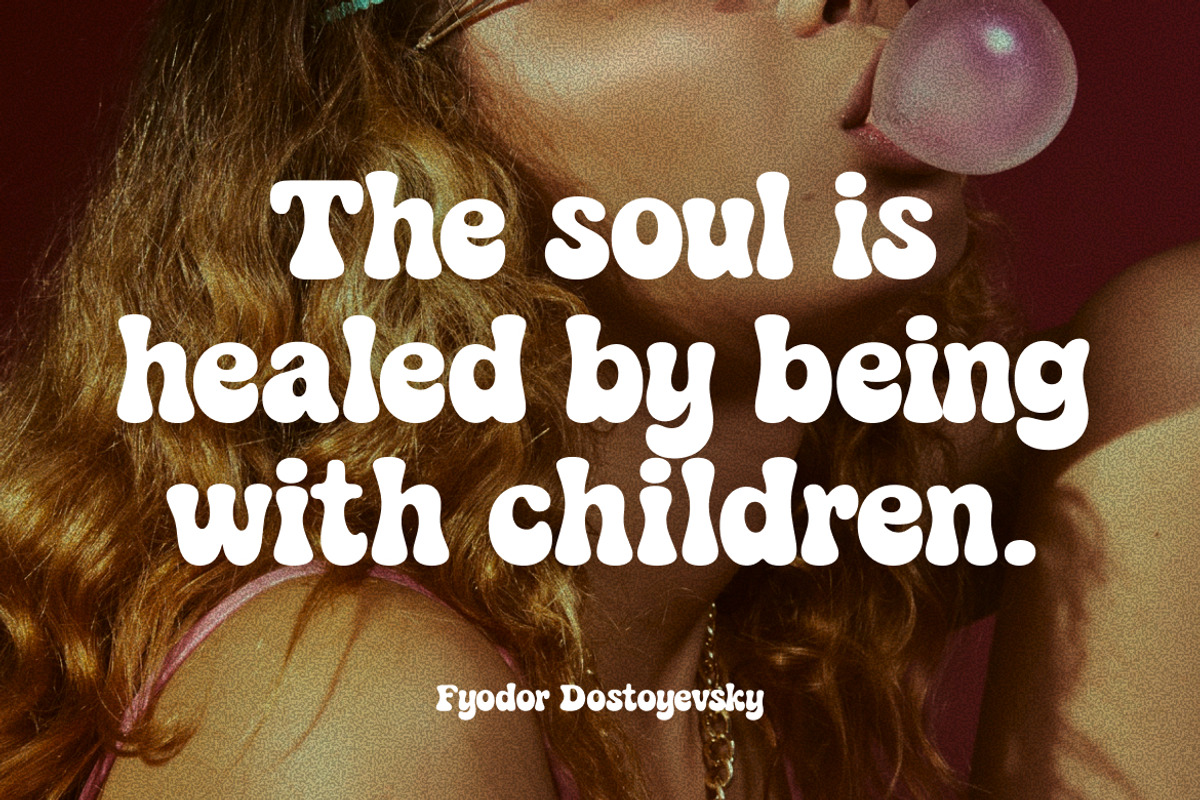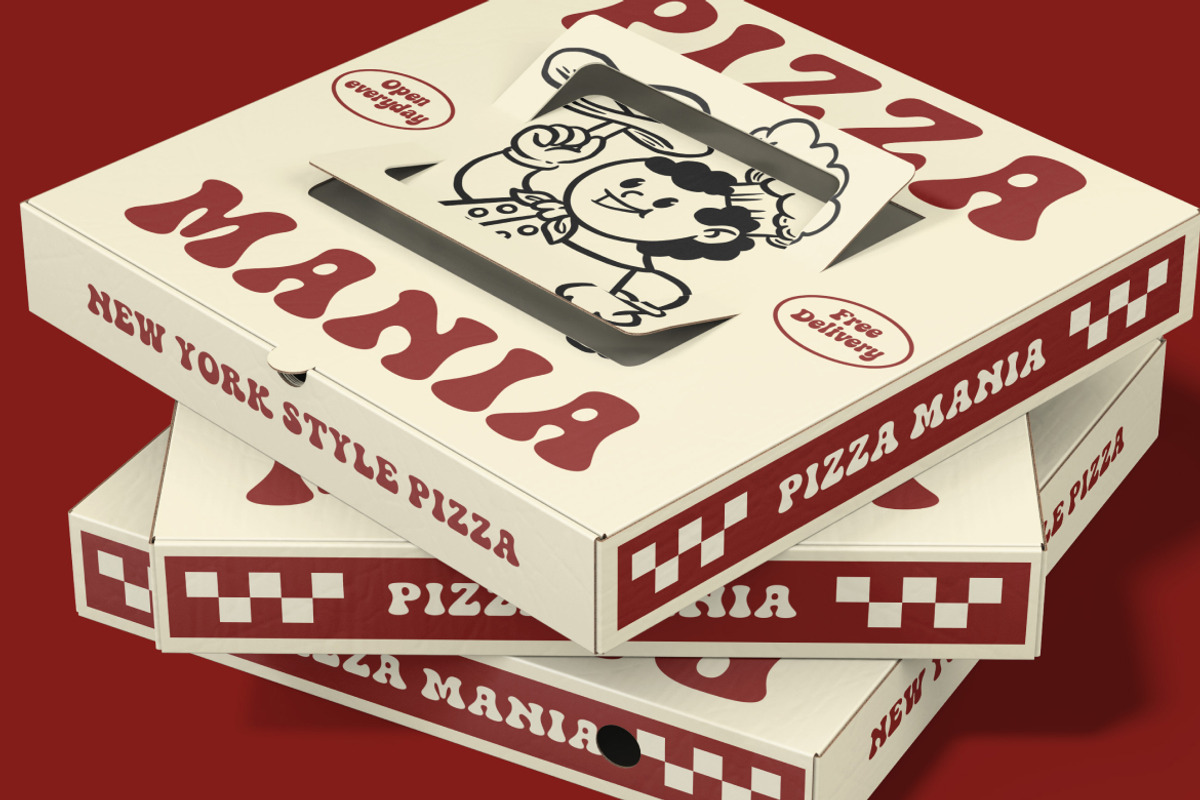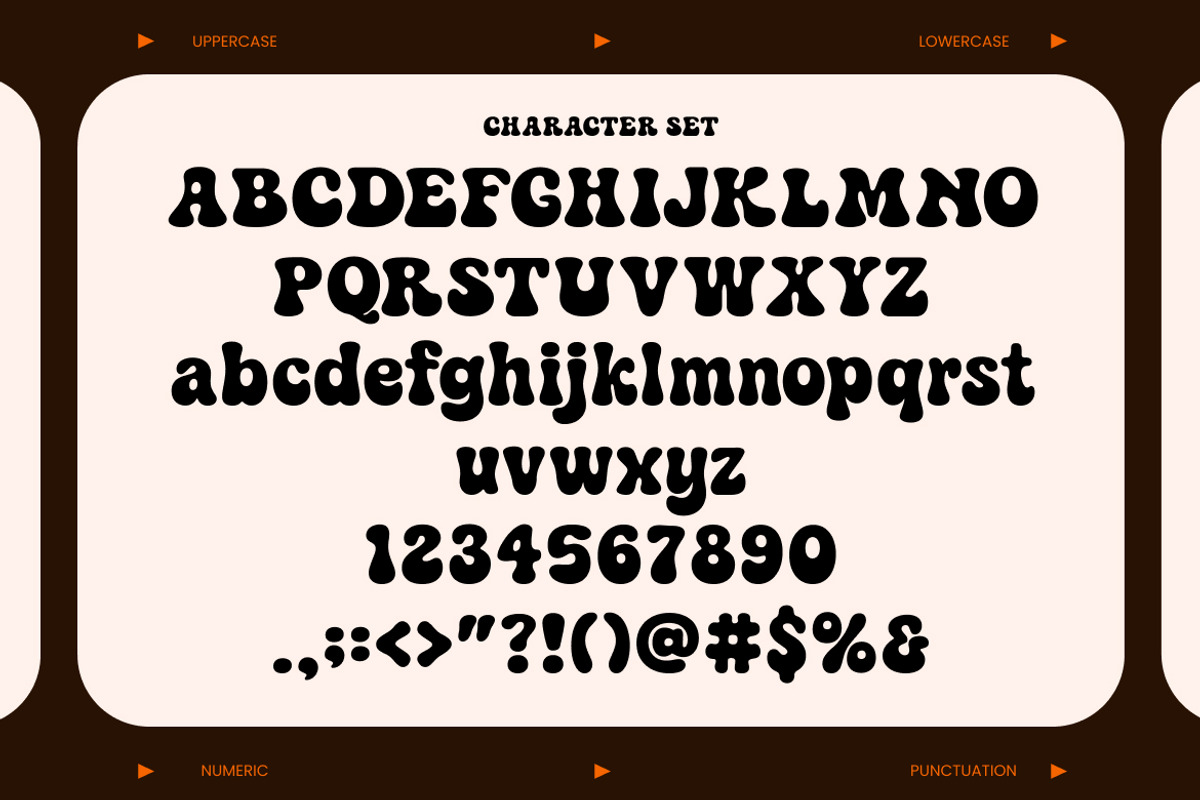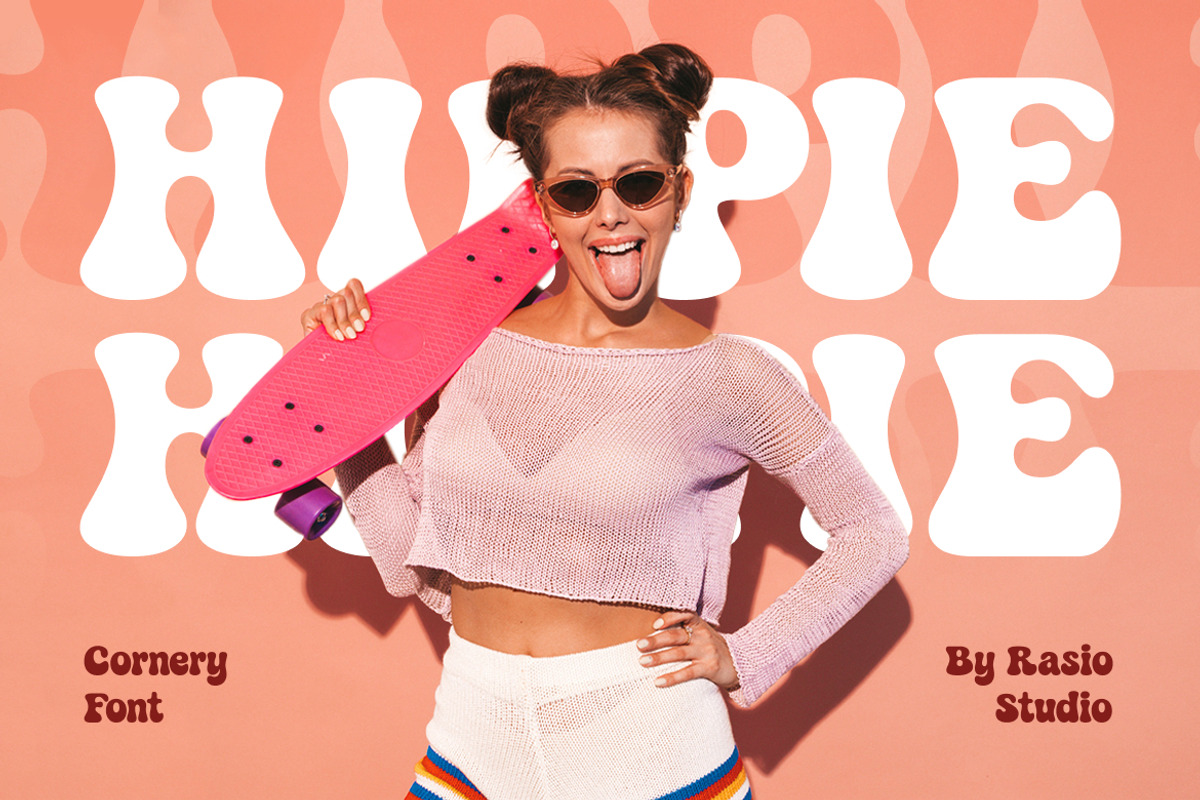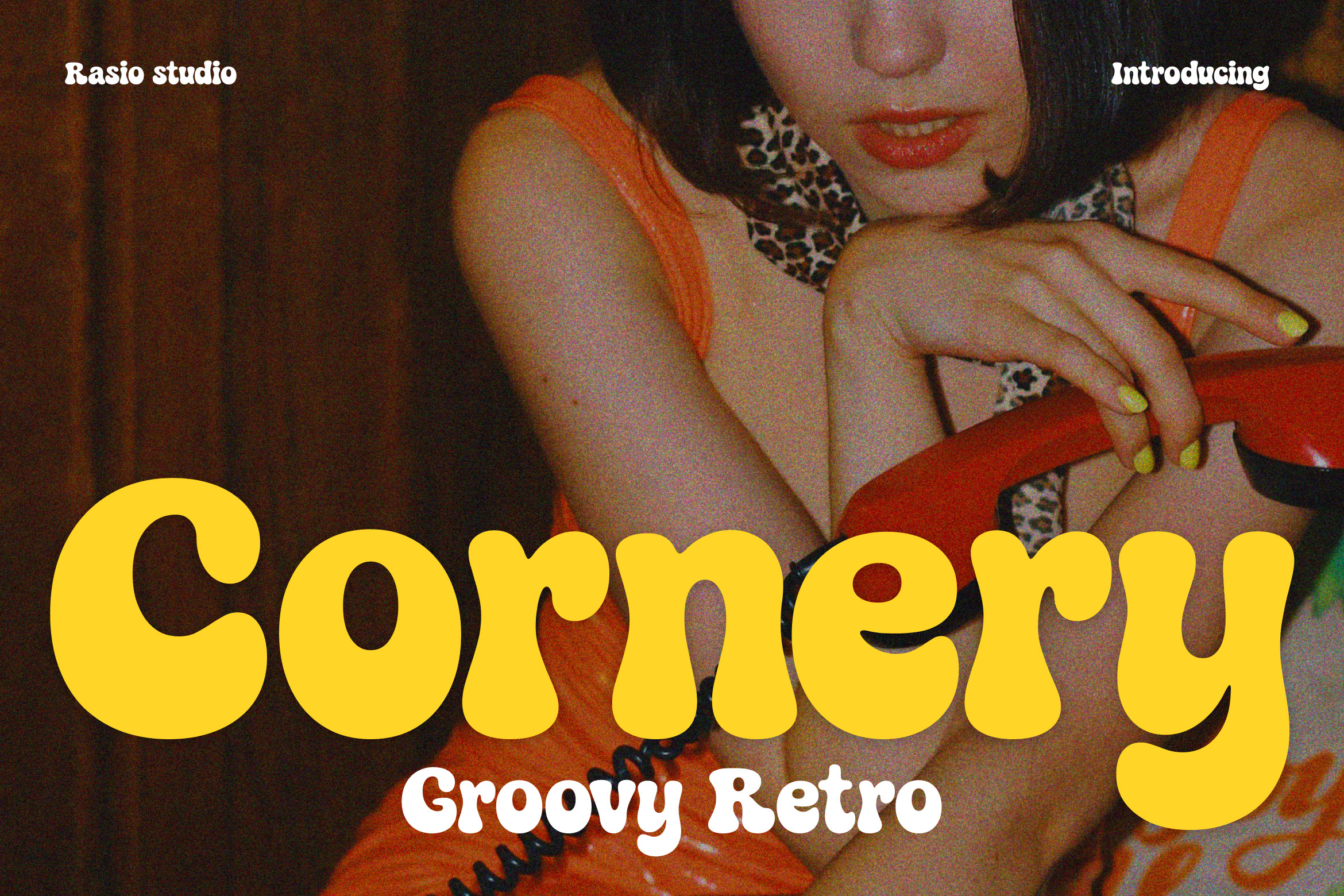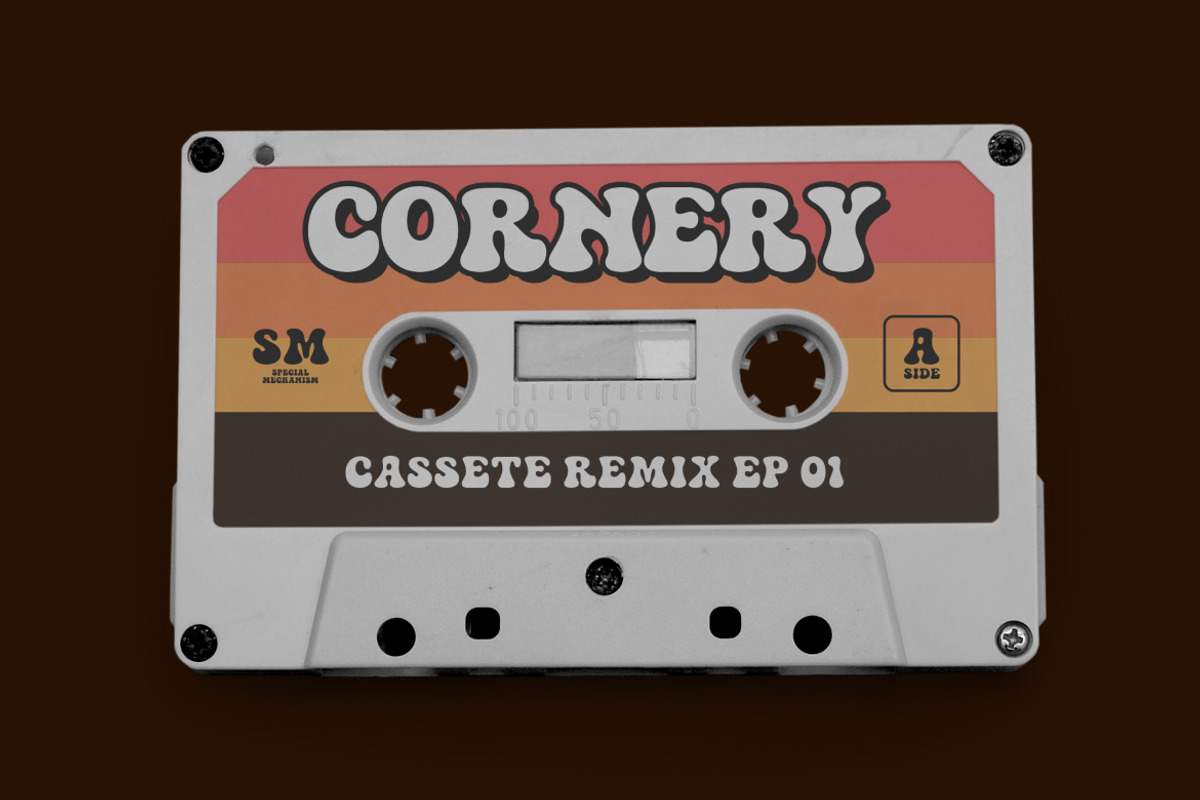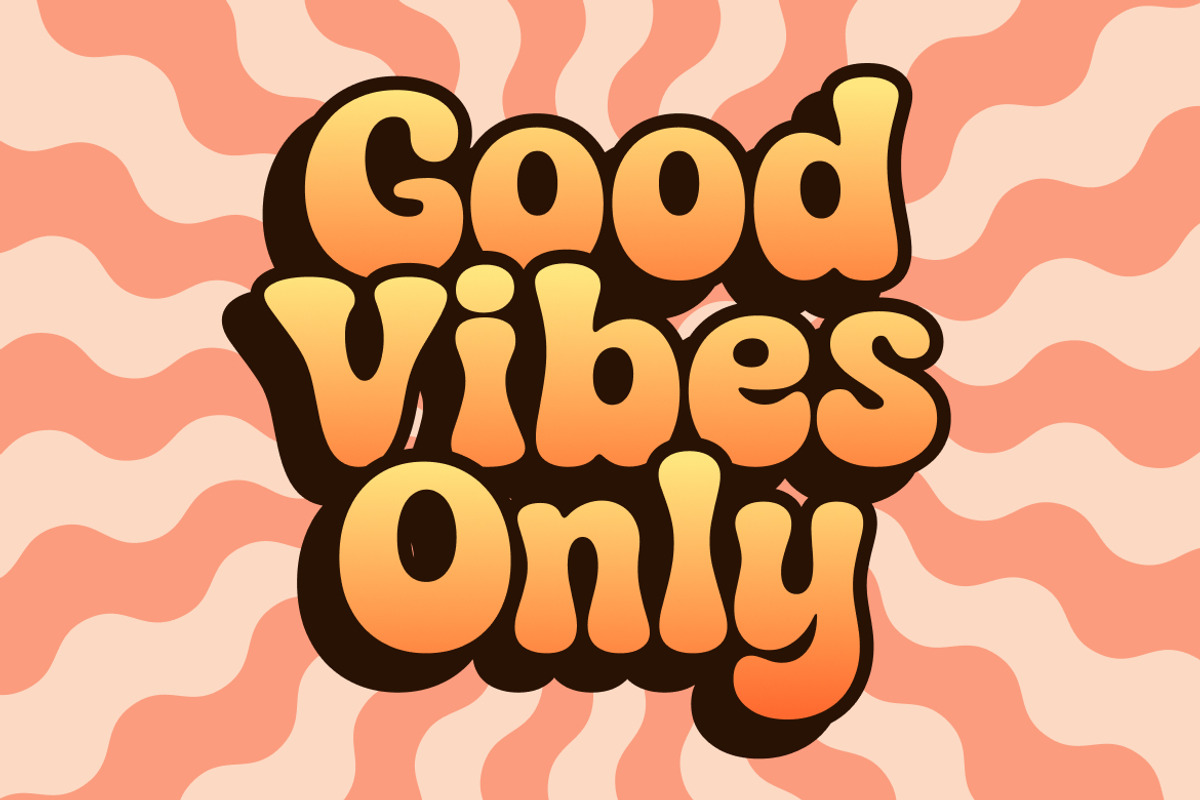
Cornery Groovy Retro Font
Cornery is a bold and playful groovy font inspired by the charm of 70s retro aesthetics. With its soft, rounded corners and bubbly letterforms, this typeface radiates warmth, positivity, and vintage fun. Perfect for posters, logos, packaging, and social media graphics, Cornery brings nostalgic energy to any creative project. The smooth curves and dynamic rhythm of each character make it both expressive and easy to read. Comes complete with uppercase, lowercase, numbers, and punctuation.
Relevance and Use Cases is perfect for retro posters, 70s-inspired branding, album covers, funky logo designs, packaging, and creative advertising. Cornery captures the essence of groovy nostalgia while staying fresh and versatile for modern projects.
- Bold retro display style with chunky, inflated letterforms
- Soft rounded edges and playful curves for a friendly groovy feel
- Distinct 70s-inspired shapes with a nostalgic pop aesthetic
- Thick and consistent stroke weight for strong visual impact
- Compact spacing that enhances readability in headlines and bold compositions
- Retro-inspired branding with bold and playful personality
- Vintage posters and groovy 70s-themed designs
- Music, festival, and entertainment visuals with expressive typography
- Packaging design for fun, colorful, and nostalgic products
- Social media content and digital graphics with a lively, standout look